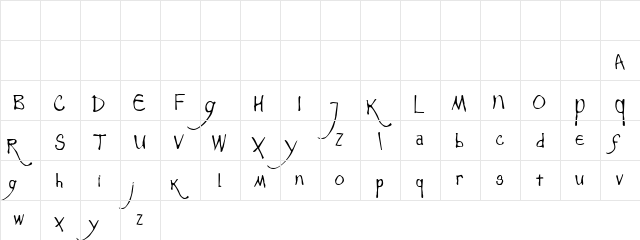
Rosalinde Regular
Design Context for Rosalinde Typeface
Rosalinde is a composed and adaptable typeface that performs quietly and consistently across a wide range of design contexts.